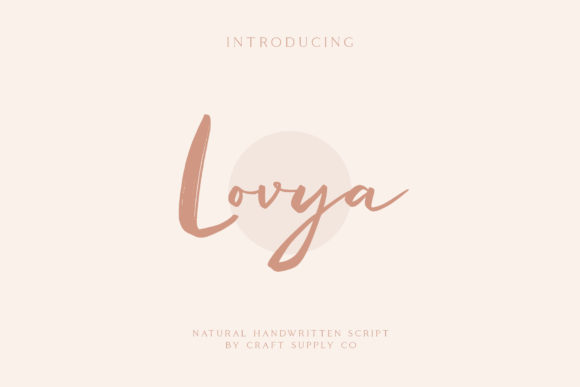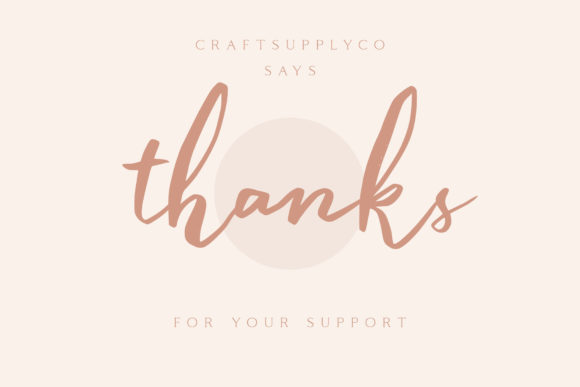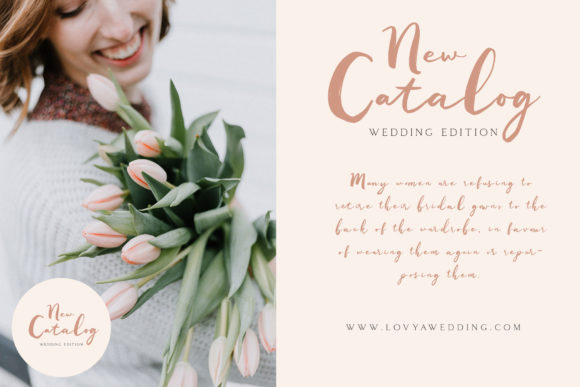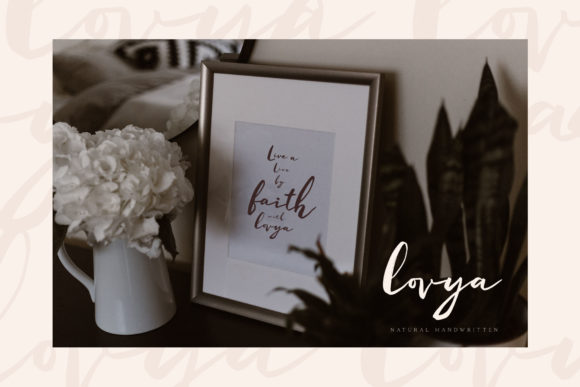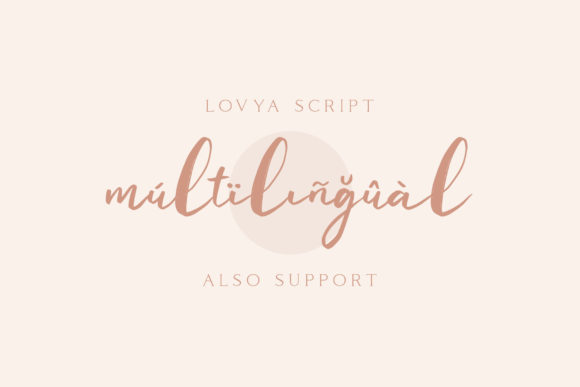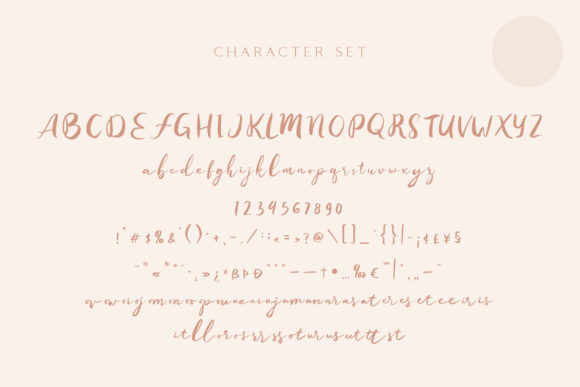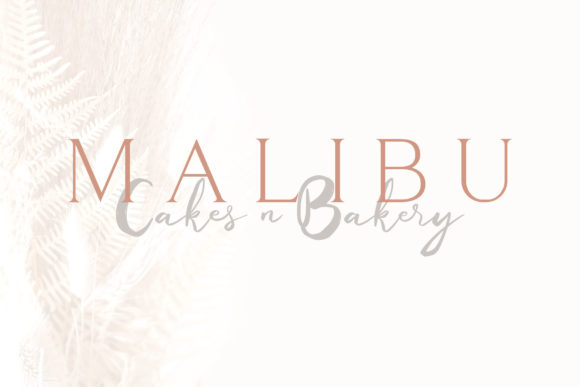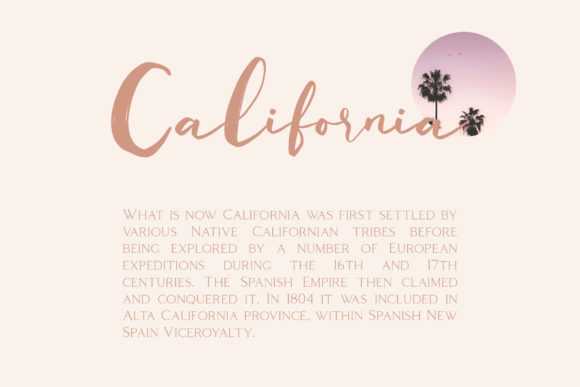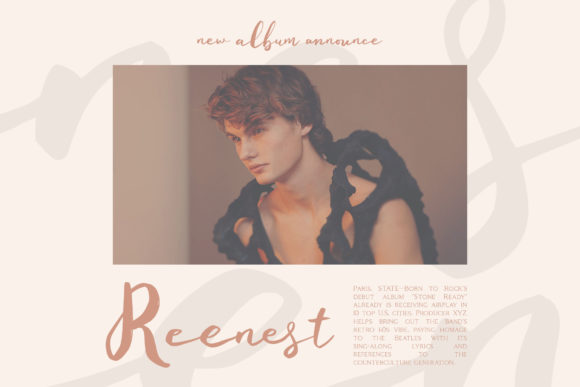
HomeScript FontsLovya Font Script Fonts Lovya Font FacebookXPinterestWhatsApp Lovya Font Poster 2 Lovya Font Poster 3 Lovya Font Poster 4 Lovya Font Poster 5 Lovya Font Poster 6 Lovya Font Poster 7 Lovya Font Poster 8 Lovya Font Poster 9 About Lovya Font Lovya radiates authenticity. This gorgeous script will turn any design project into a true standout! DOWNLOAD ON CREATIVE FABRICAThis font is sold and delivered by Creative Fabrica. Font Canyon may earn a commission if you buy through this link. People also explored Bingo Signature Font Rose Blossom Monogram Font Belove Font Cupcake Font Valentine Font Bosieh Font Handsome Font Belistic Kaldera Font Magical Christmas Font 337 0 TagsLovya Font Previous articleBottom Cut FontNext articleSweet Purple Font LEAVE A REPLY Cancel reply Comment: Please enter your comment! Name:* Please enter your name here Email:* You have entered an incorrect email address! Please enter your email address here Website: Save my name, email, and website in this browser for the next time I comment. Personal Use Free Daisy Script Personal Use Free Read more about this font Sweet Cake Personal Use Free Read more about this font Market Love Personal Use Free Read more about this font Bestlife Personal Use Free Read more about this font BLOG Free Fonts Risk: Why Free Fonts Can Be Dangerous for Designers Free Fonts Risk: Why Free Fonts Can Be Dangerous for Designers Using free fonts is a common practice in web and graphic design. However, the... How to Install and Use Fonts on Windows, macOS, and Web Projects 5 Fonts That Will Dominate Design Trends in 2026 Best Fonts for YouTube Videos: Make Your Thumbnails Stand Out